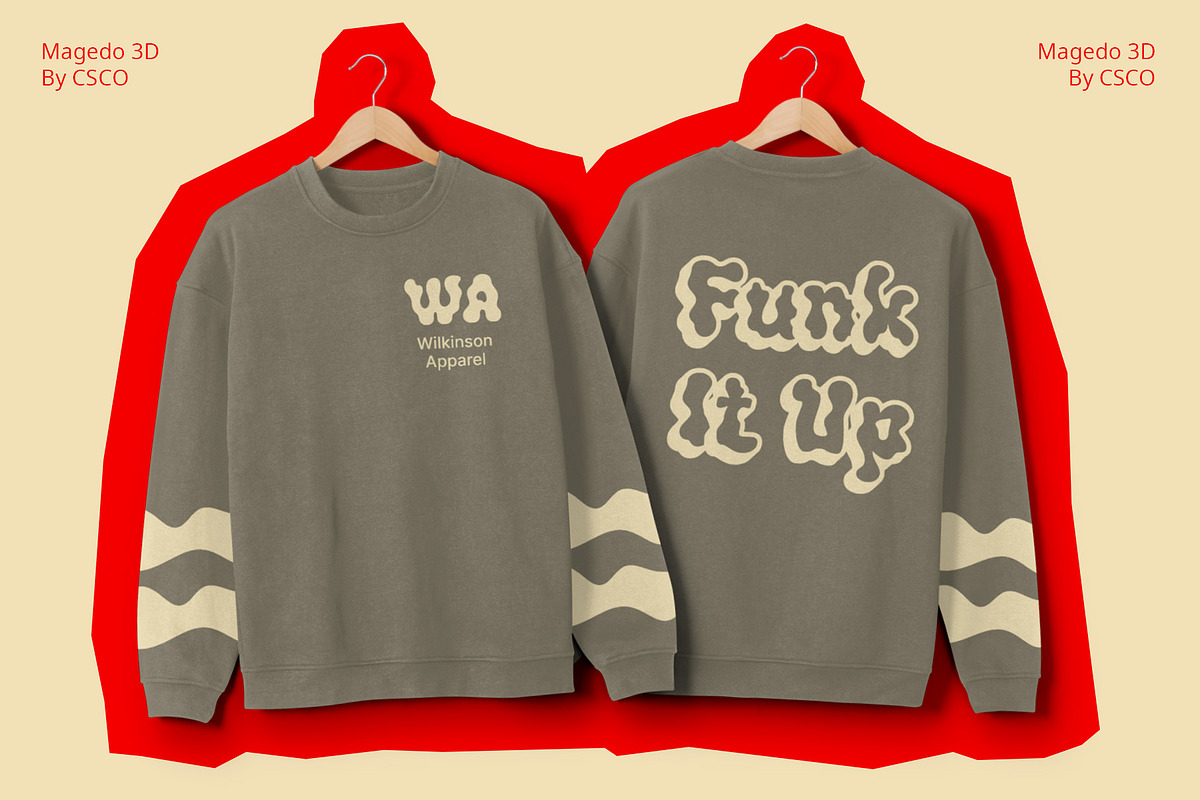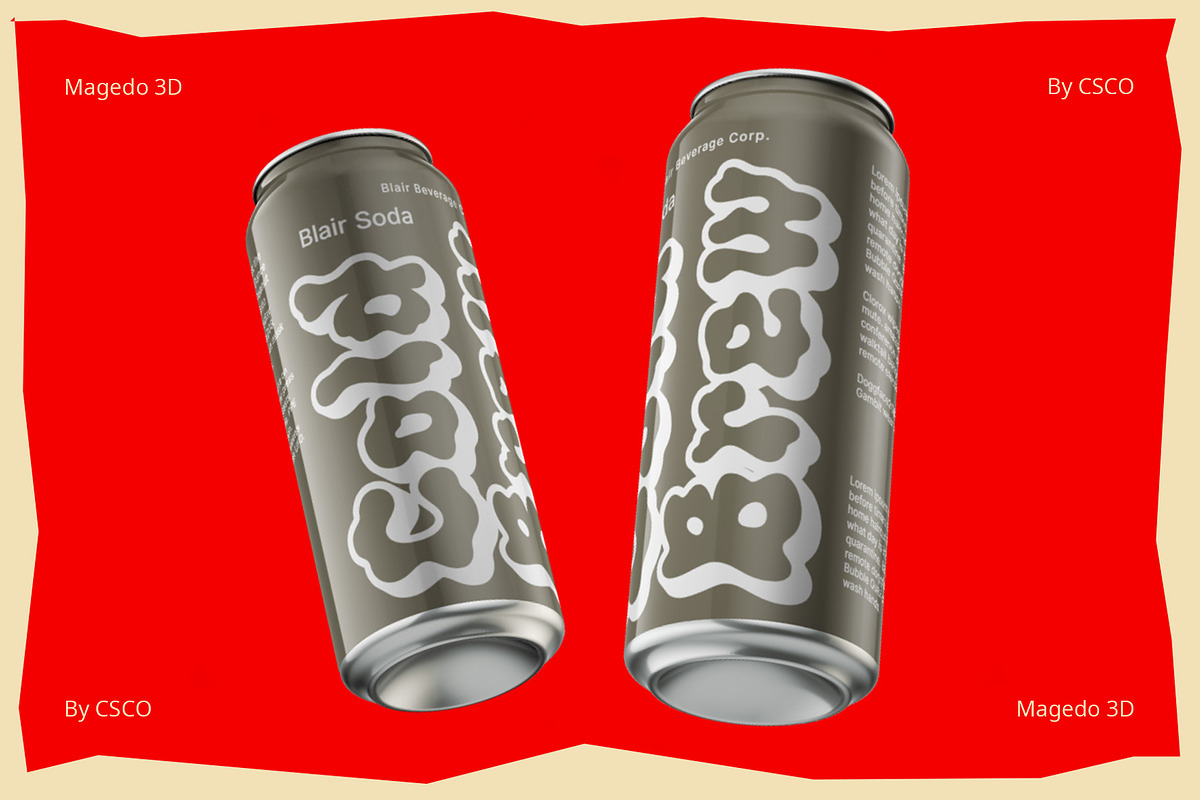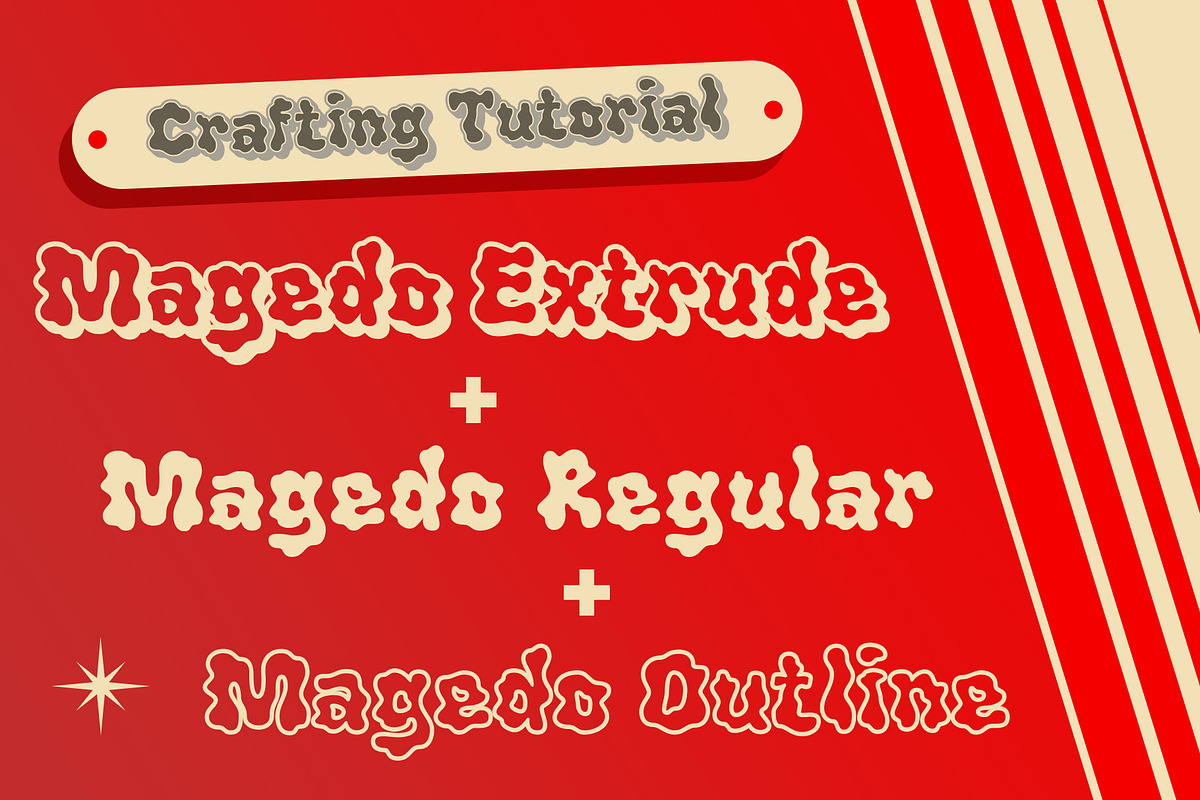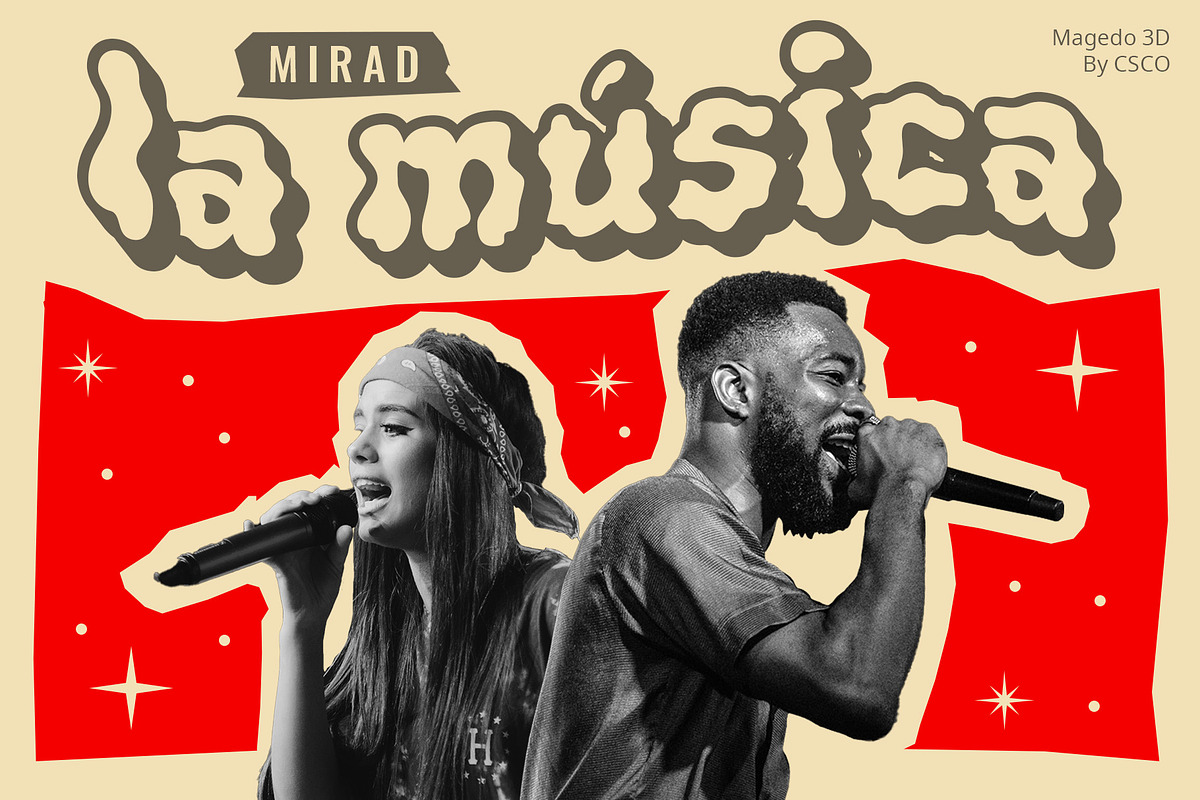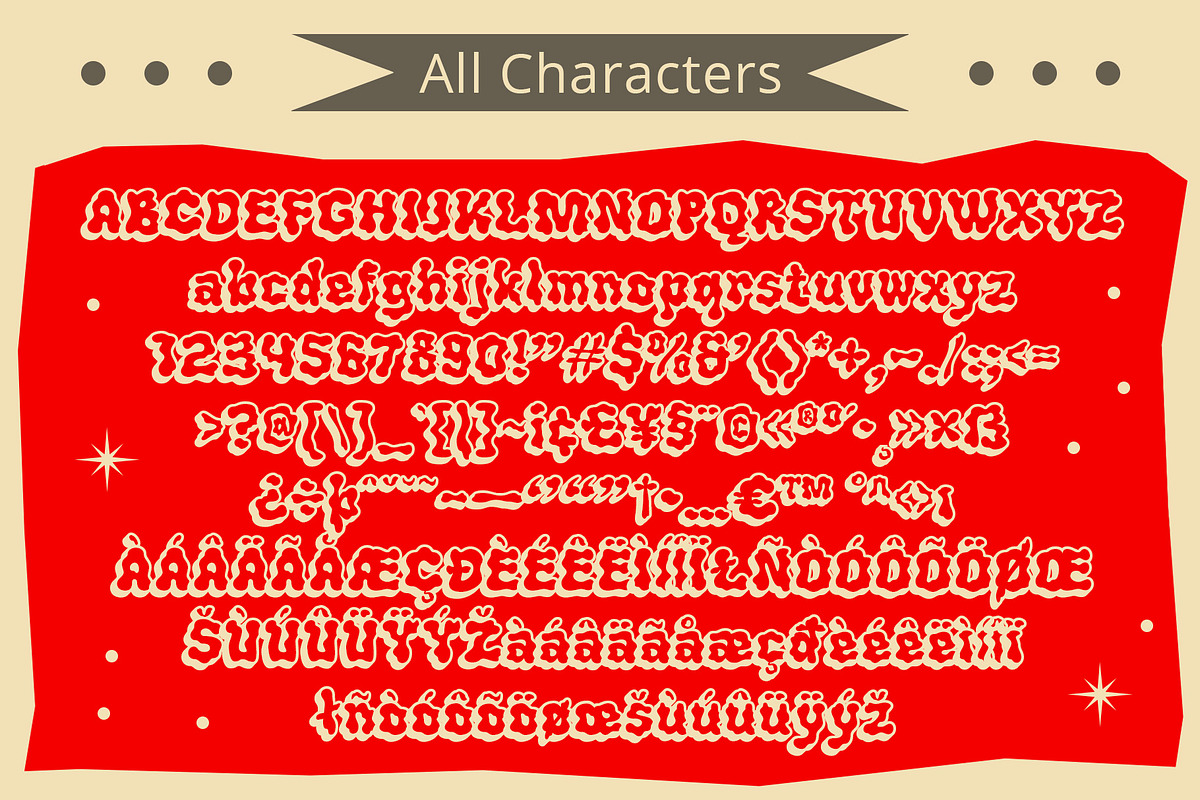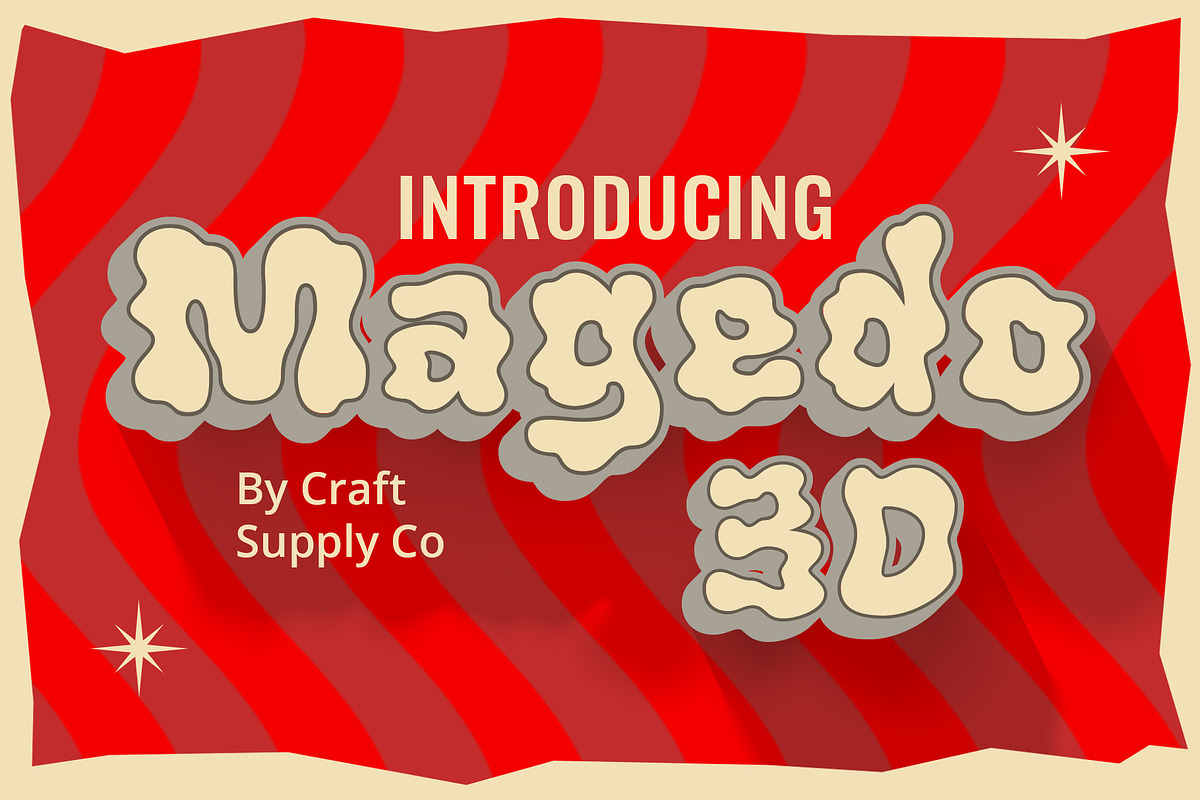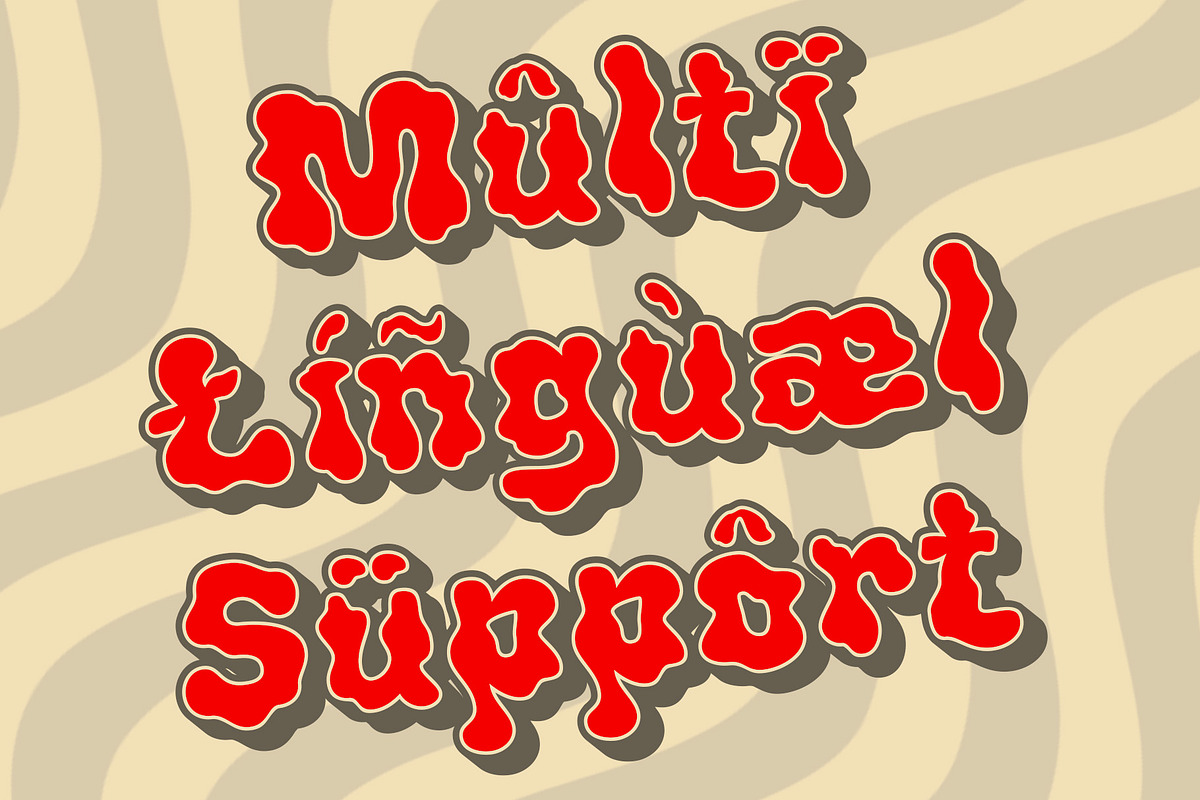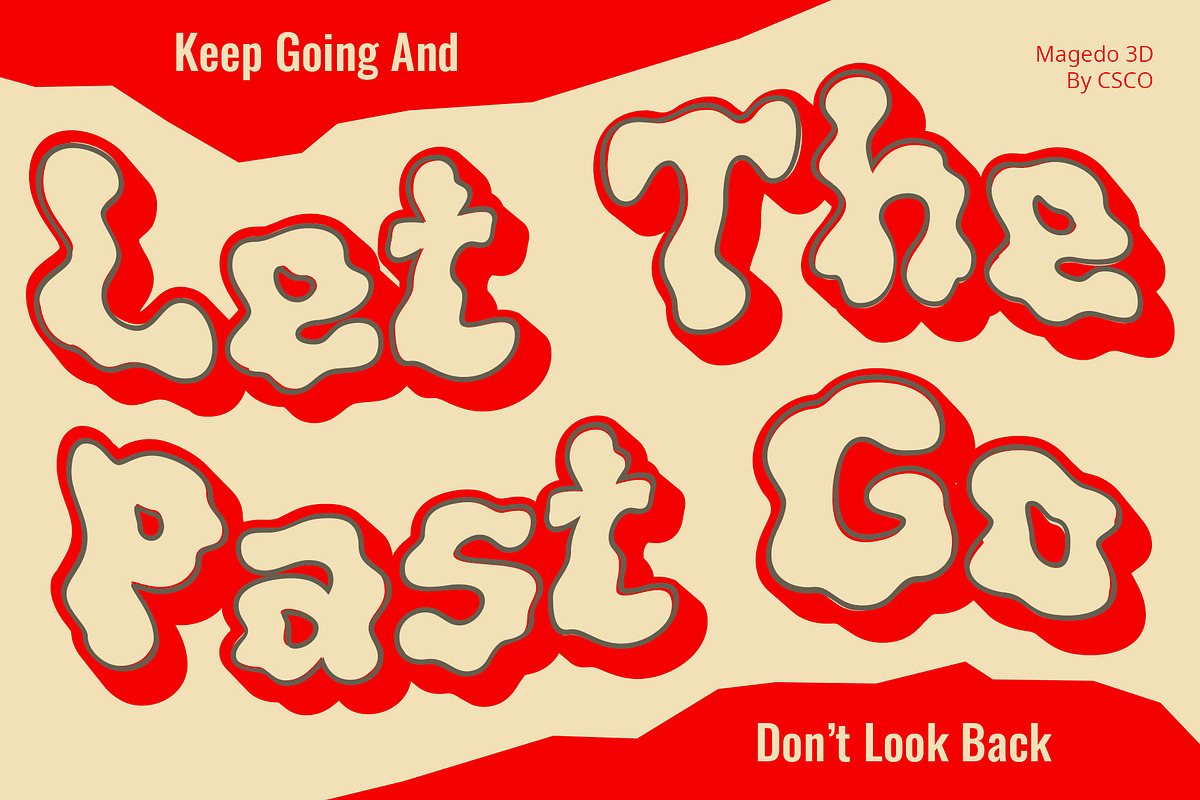
Magedo 3D
Magedo 3D Font: Elevate Playfulness with Trippy Vibes
Whimsical Inspiration Magedo 3D is a display font that dances to the beat of psychedelic trippy vibes, infusing your designs with a playful and whimsical spirit.
A Multidimensional Experience This font goes beyond two dimensions, embracing the power of 3D. The carefully crafted extrude and outline effects bring each letter to life, creating a vibrant, multidimensional experience.
Trippy Playfulness Unleashed The trippy playfulness is unleashed through every curve and contour, making it a perfect choice for projects that demand a touch of the extraordinary.
Versatile and Captivating Whether you’re designing event posters, album covers, or social media graphics, Magedo 3D’s versatility shines. Its captivating presence adds a unique flair to any creative endeavor.
In Conclusion Magedo 3D isn’t your ordinary font; it’s a celebration of playfulness in three dimensions. Elevate your designs with this font, where every letter is a brushstroke of vibrant, trippy inspiration.